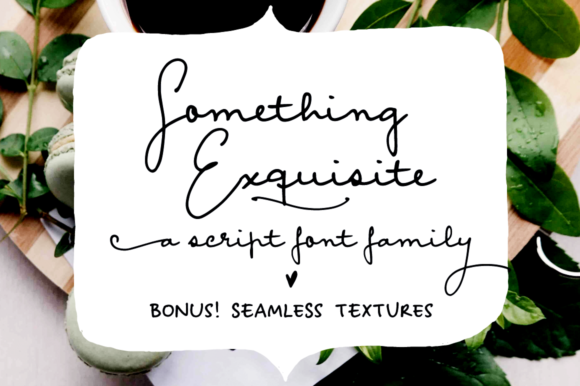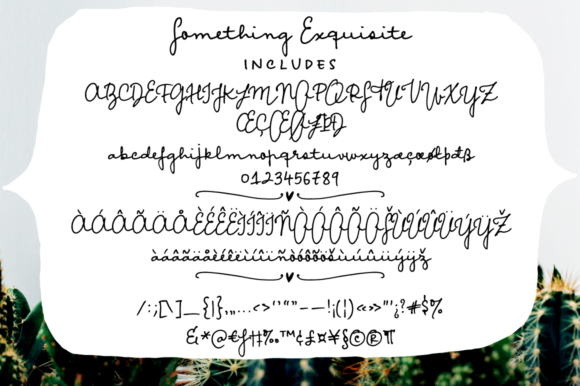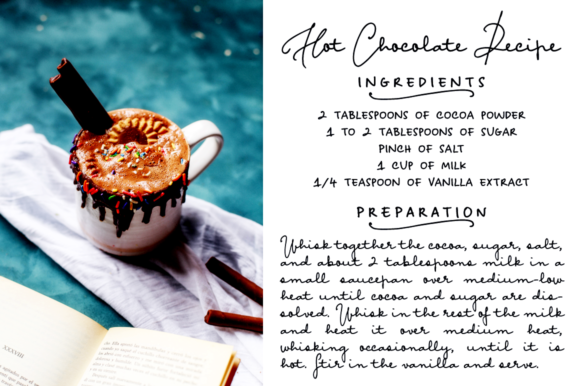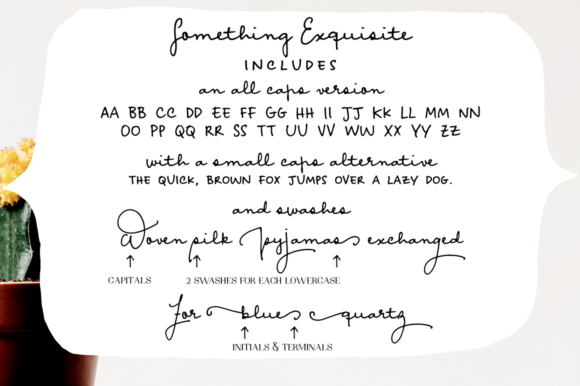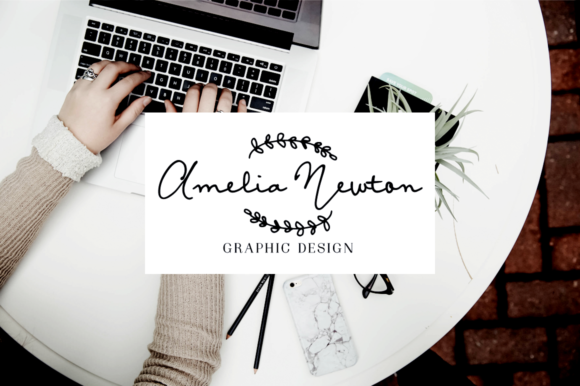
About Something Exquisite Font
Something Exquisite is a unique and elegant handwritten font. It looks beautiful on a variety of designs requiring a personalized style, such as wedding invitations, thank you cards, weddings, greeting cards, logos and so on.